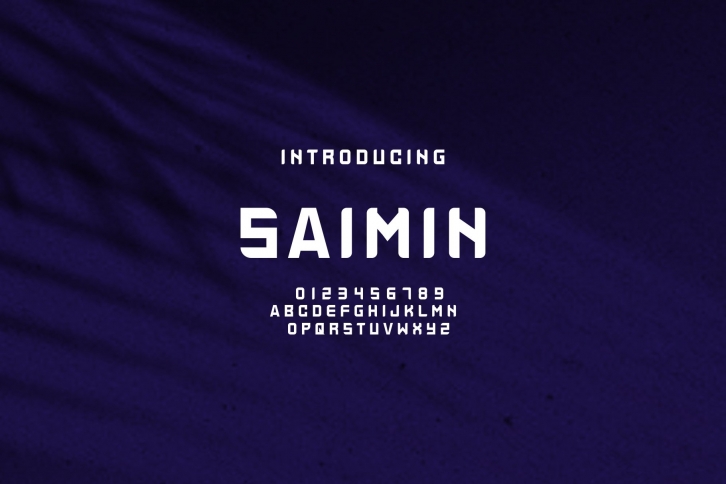
Saimin Font
Clean and simple Saimin Font that is great for presenting your logo designs. It is easy to place your designs with Smart Objects as well as change background color to fit your designs.